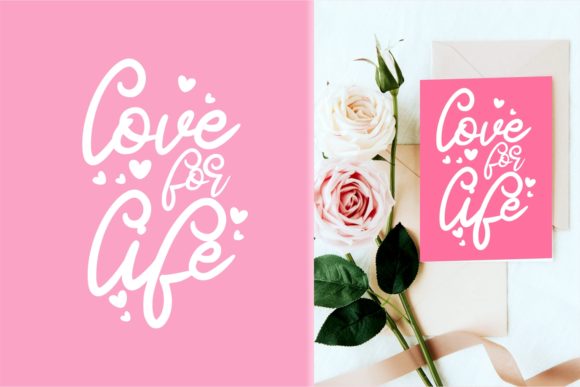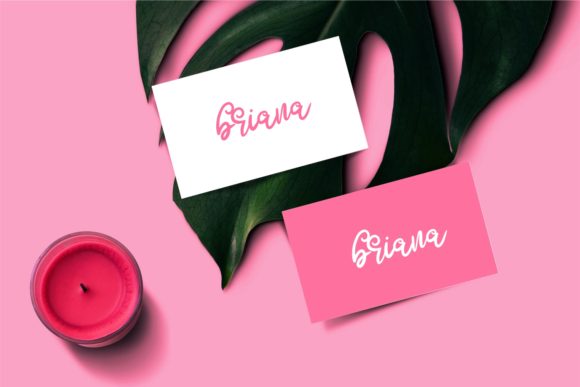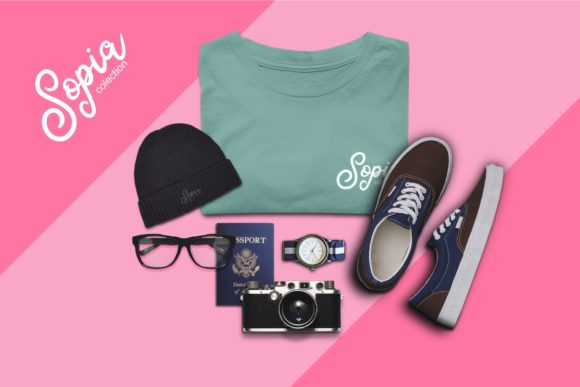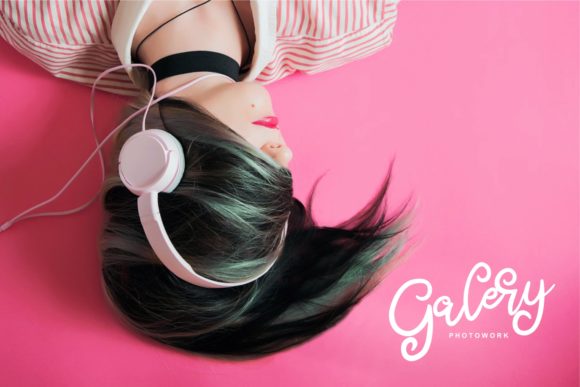
Introduction to Quenty Font Font
Fonts play a crucial role in design, and the Quenty Font font is a typeface that brings both character and versatility to any project. Whether you’re working on a branding project, a website, or a print design, the Quenty Font font offers a unique style that can elevate your work.
Quenty is a beautiful and fresh script with an authentic vibe.
This one-of-a-kind script will add a creative spark to any craft .
Key Features of Quenty Font Font
Why Choose Quenty Font Font?
The Quenty Font font is more than just a typeface – it’s a design tool that helps you communicate your message with style and clarity. Its unique character set and versatile design make it suitable for a wide range of applications, from elegant invitations to bold headlines.
With its carefully crafted letterforms and balanced proportions, the Quenty Font font ensures readability and visual appeal across all mediums.
What makes Quenty Font font special?
The Quenty Font font stands out with its unique design, exceptional readability, and versatility across various design applications.